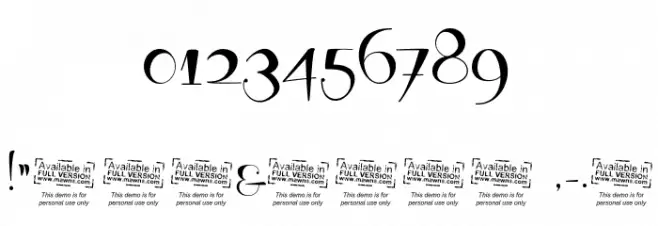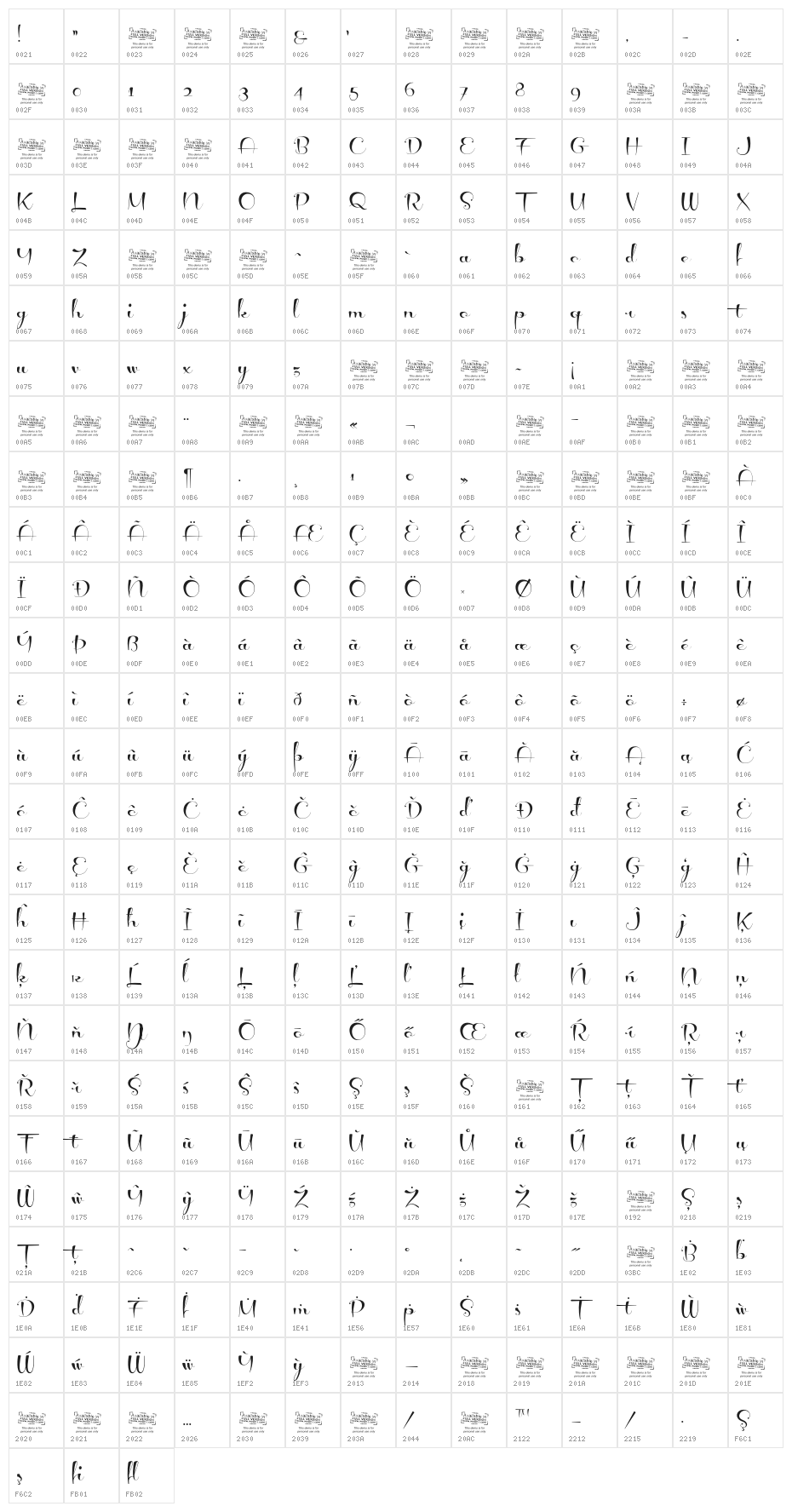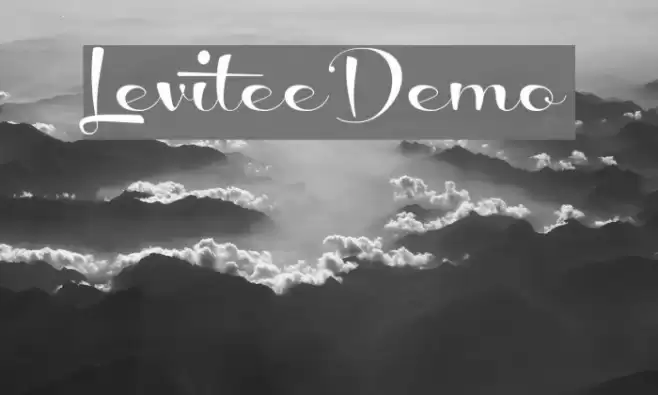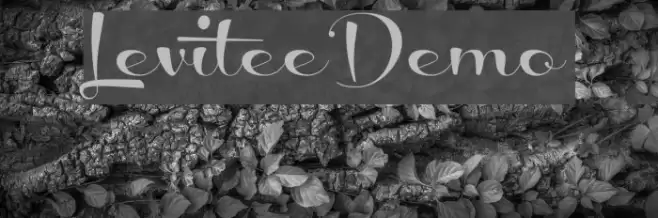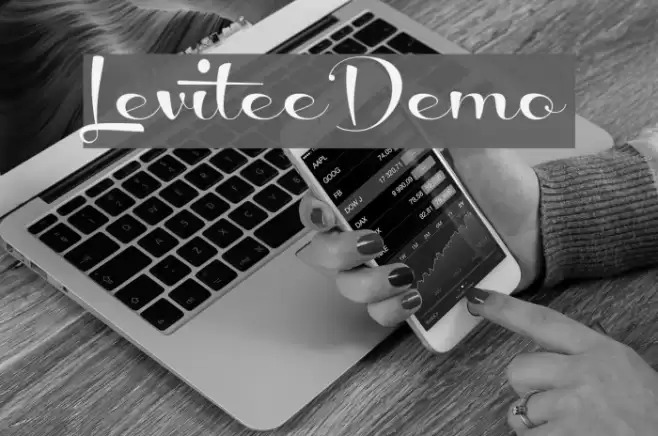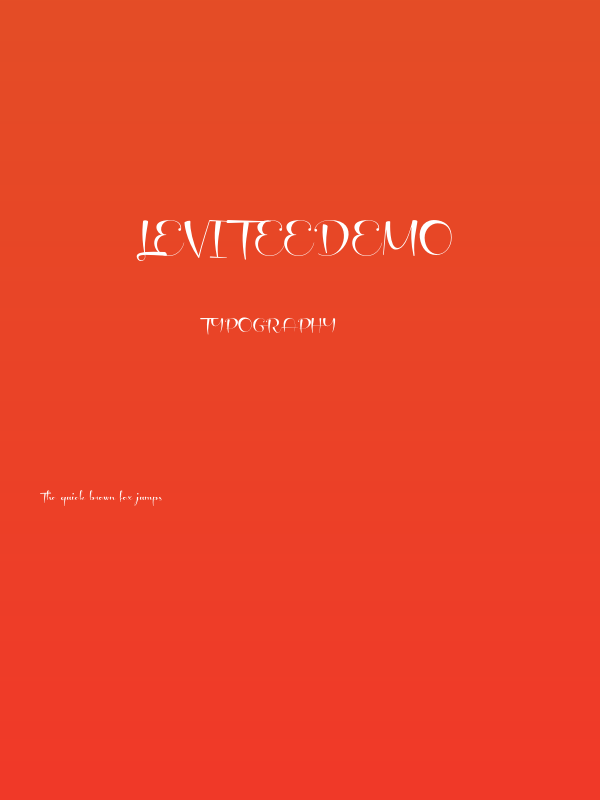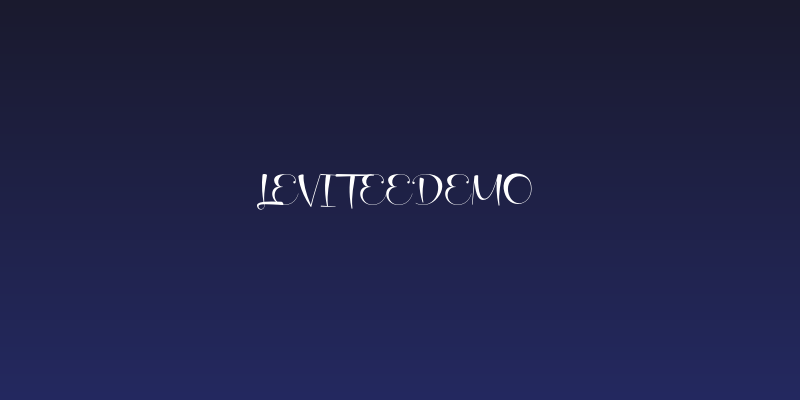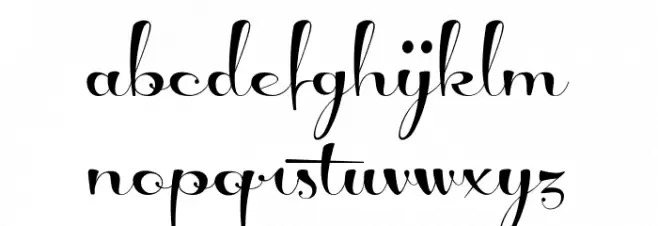
LeviteeDemo Font
LeviteeDemo Description
This font features a unique blend of elegance and modernity, characterized by its flowing, cursive style with a touch of calligraphic influence. The uppercase letters are distinct with their elongated and graceful curves, while the lowercase letters maintain a consistent fluidity, enhancing readability. The numerals are stylishly designed, complementing the overall aesthetic. Special characters are crafted with a creative flair, adding to the font's versatility. This font is ideal for projects that require a sophisticated and artistic touch, such as invitations, branding, and editorial design.
| Use Case | Logos, Invitations, Editorial Design |
| Proposed Projects | Ideal for wedding invitations, luxury branding, editorial layouts, and artistic posters. |